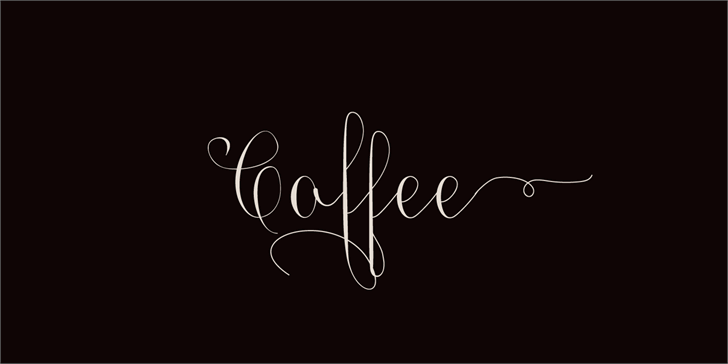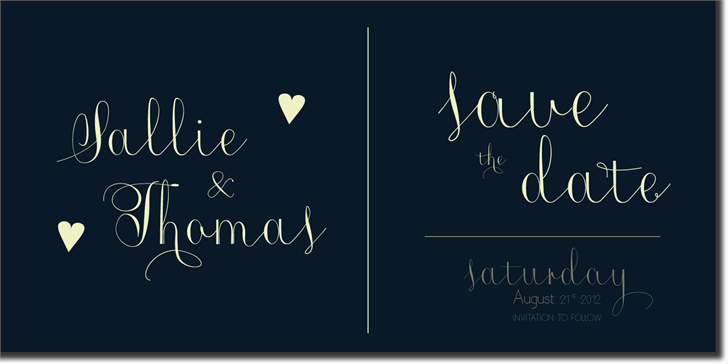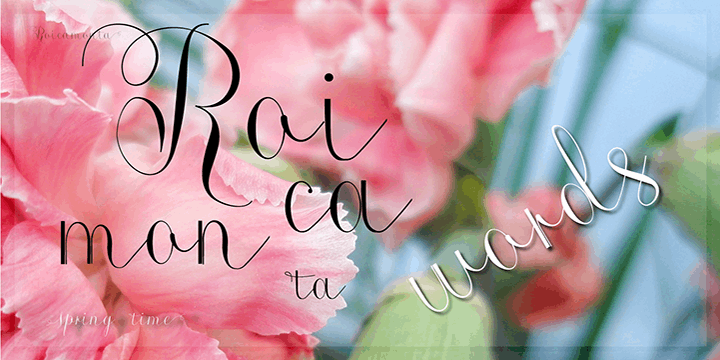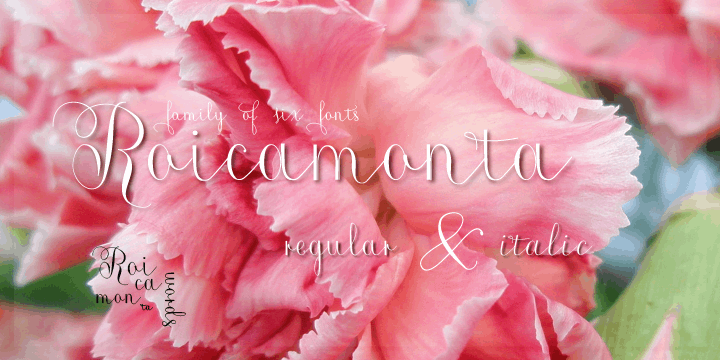
Roicamonta Words font — Created in 2014 by AgaSilva
Roicamonta font looks very feminine and delicate. Perfect fit for invitations, greeting cards and other printing where soft and elegant writitng is required.